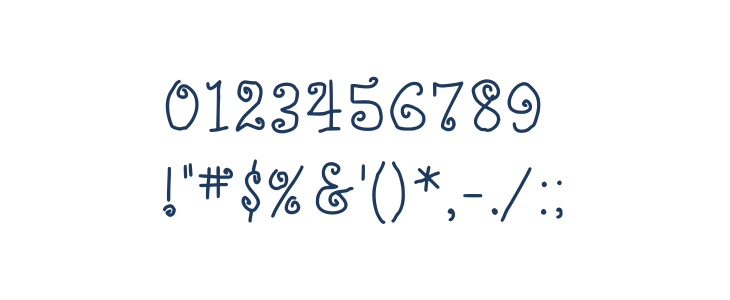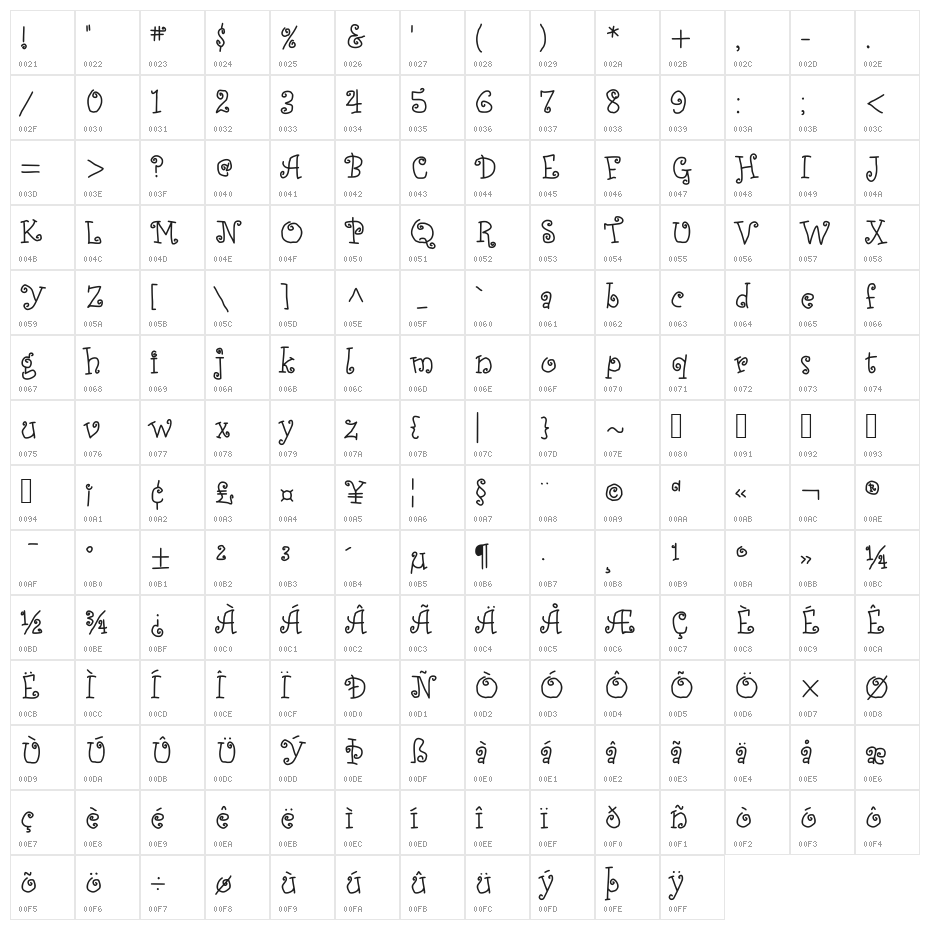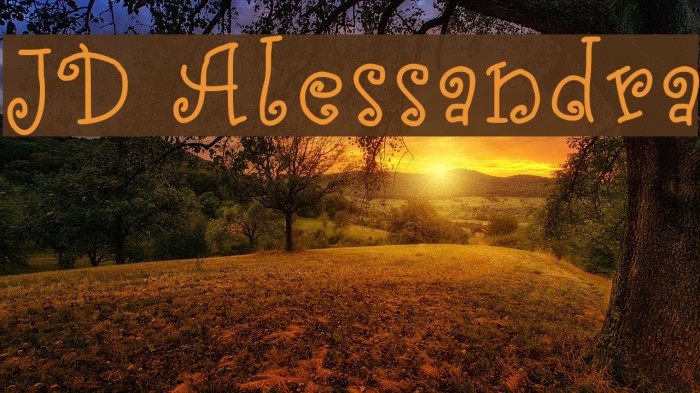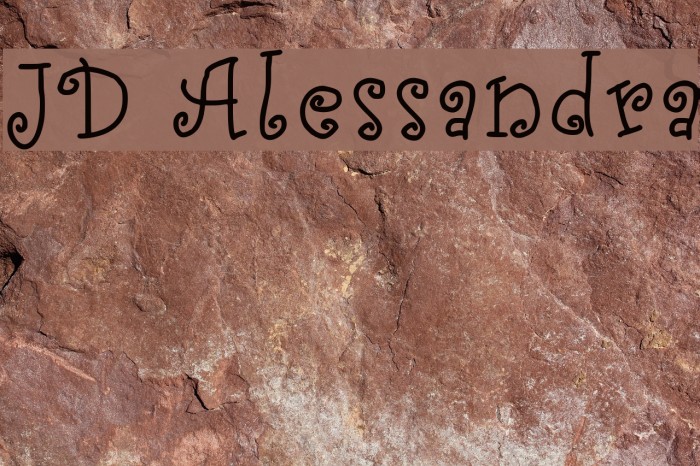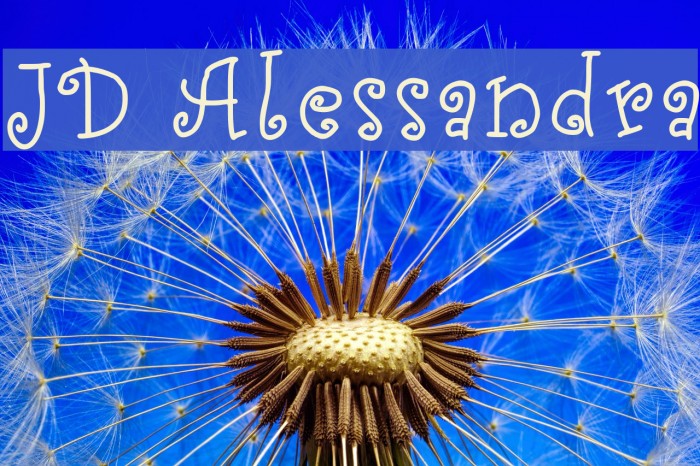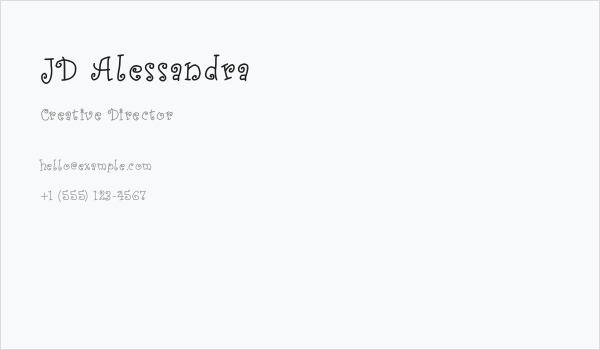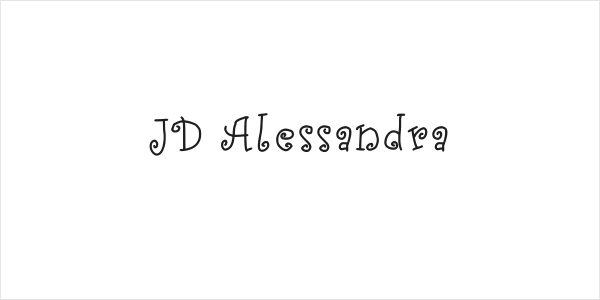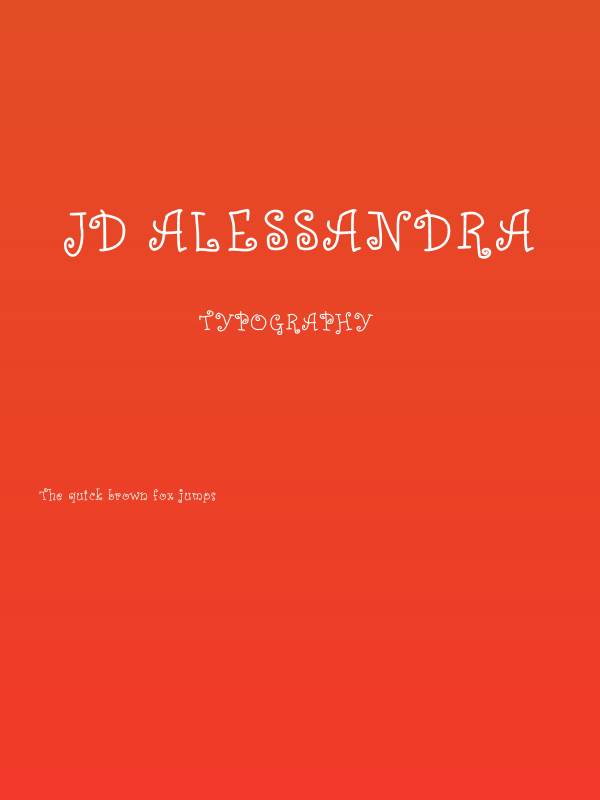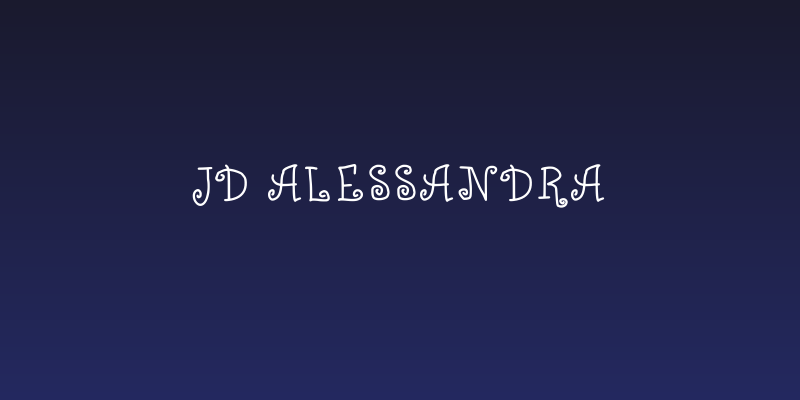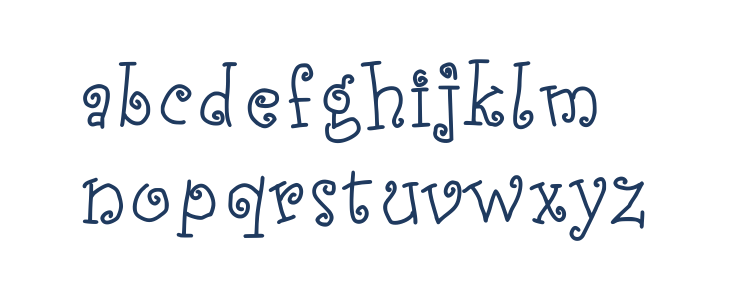
JD Alessandra Font
JD Alessandra Description
This whimsical and playful font features a unique, curly design that adds a touch of fun and creativity to any project. Each character is adorned with distinctive swirls and loops, giving it a hand-drawn, artistic feel. The letters maintain a consistent baseline, while the varying heights and embellishments create a dynamic and lively appearance. The numerals and special characters follow the same decorative style, ensuring a cohesive look across all text elements. This font is perfect for projects that aim to convey a sense of joy, creativity, and individuality.
| Overall Style | Playful, Artistic |
| Proposed Projects | Ideal for children's books, greeting cards, playful branding, and creative posters. |